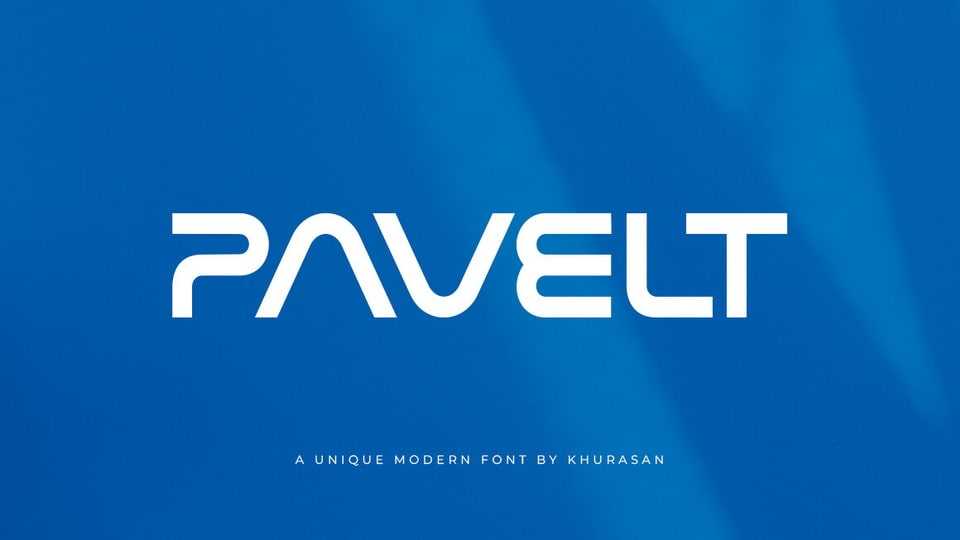
Download Pavelt font, a clean, unique, and modern sans-serif typeface. The smooth and light execution makes this font look sleek and minimalist which is perfect for technology branding designs.